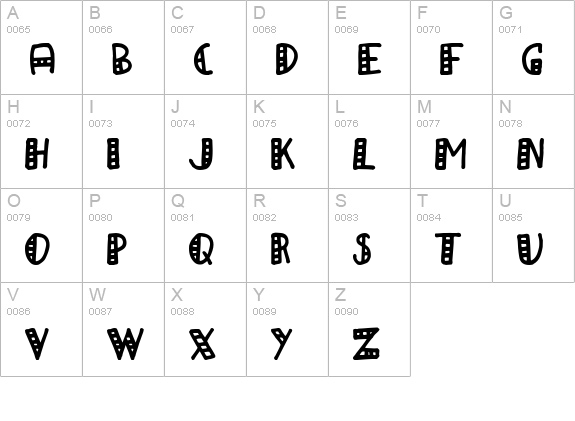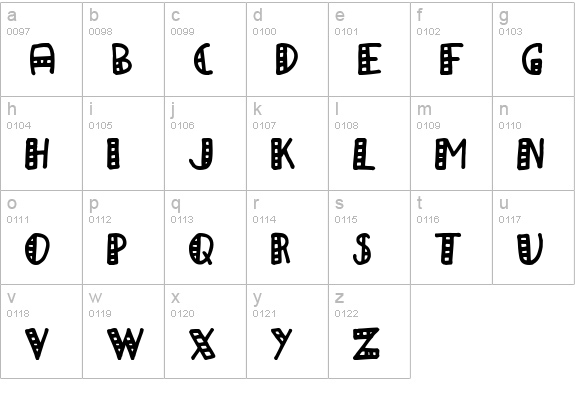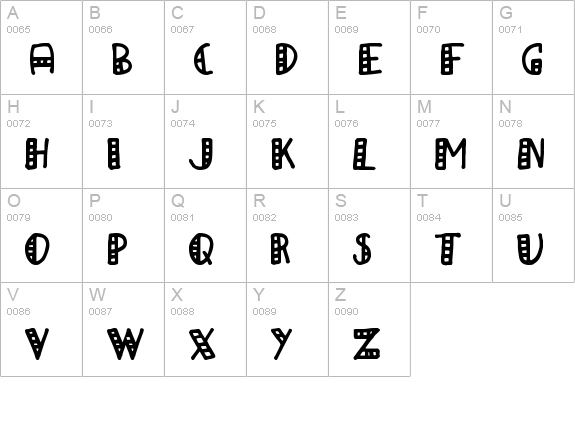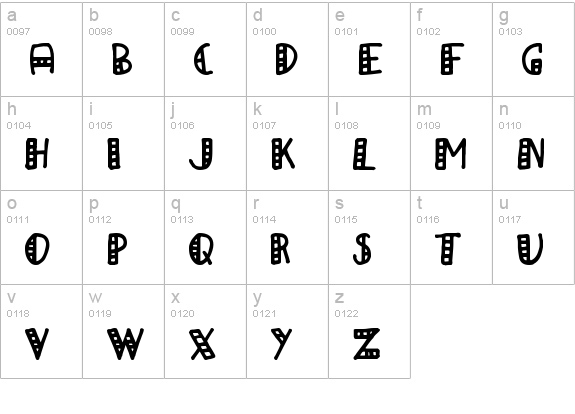
APapa Font Details
APapa font is a modern and stylish typeface that exudes elegance and sophistication. With its sleek lines and unique design, this font is perfect for a wide range of design projects, from branding to invitations to social media graphics. The best part is that APapa font is completely free to download at FontsMarket.com, making it accessible to all designers looking to add a touch of class to their work. Elevate your designs with APapa font and make a lasting impression on your audience.